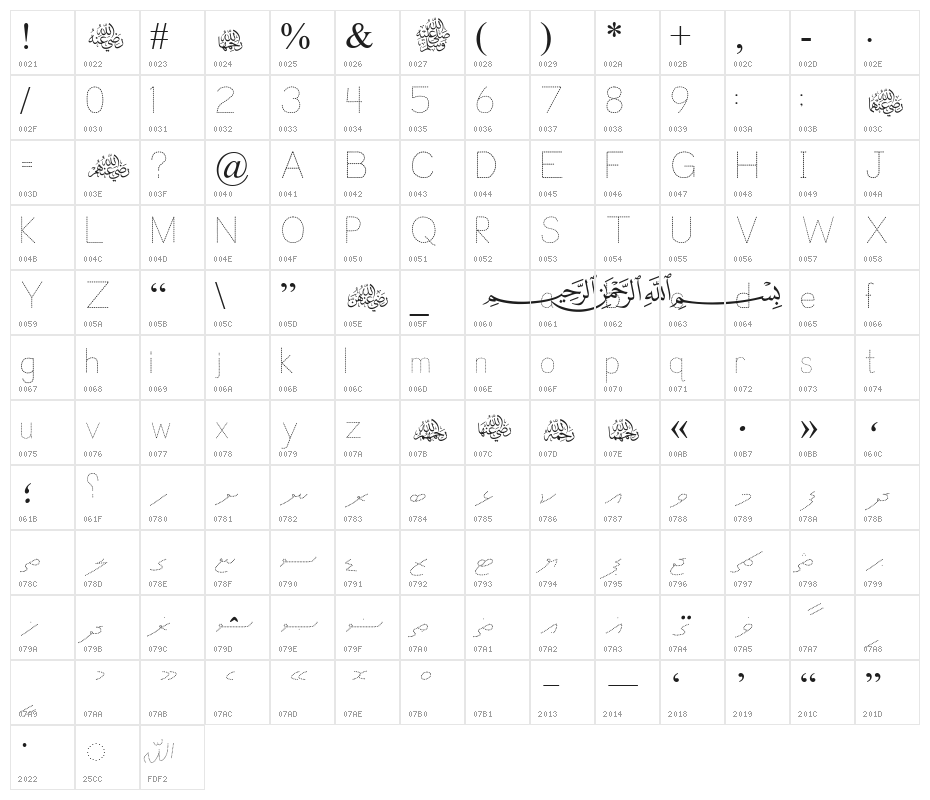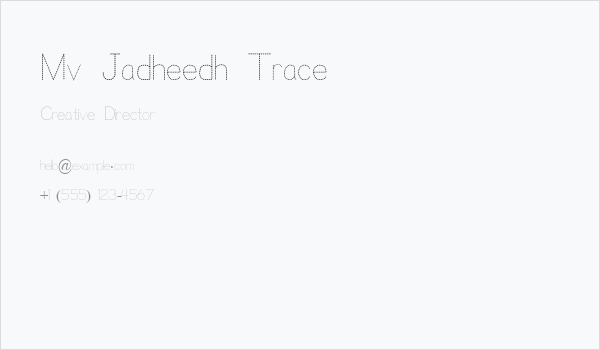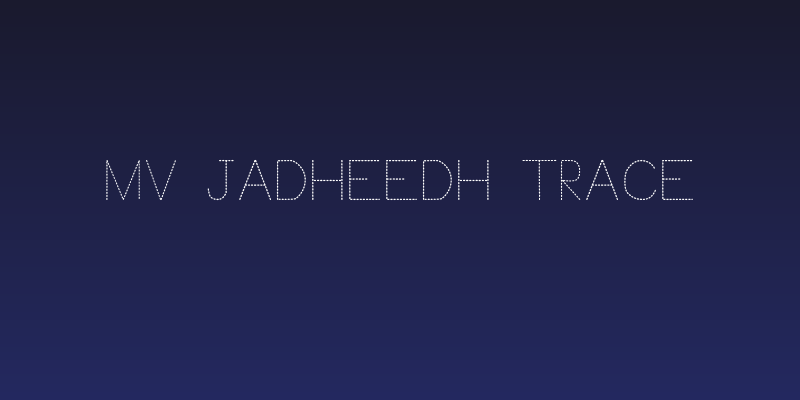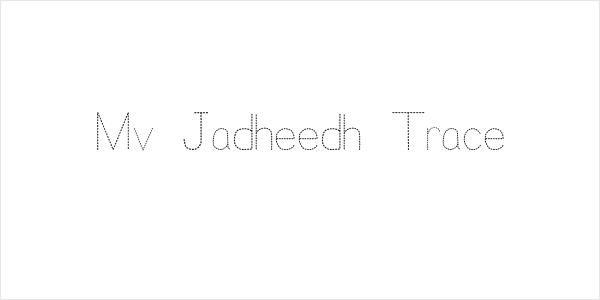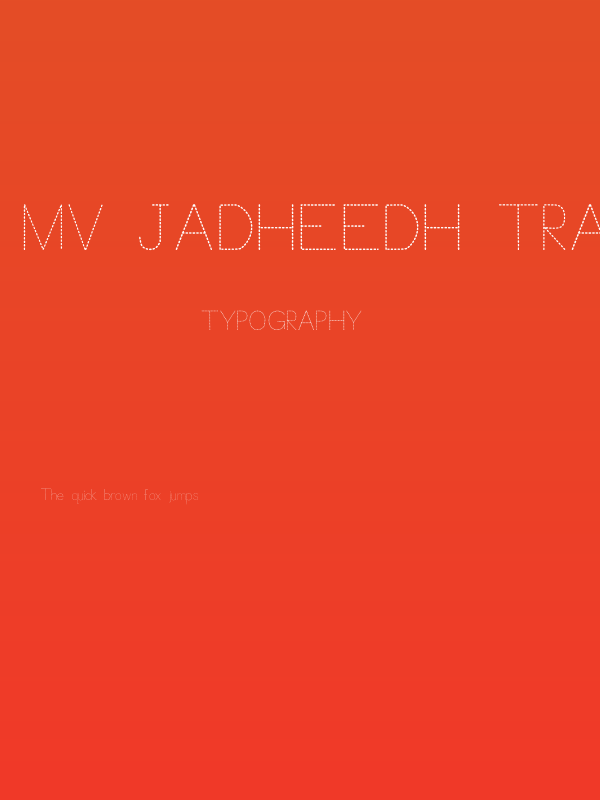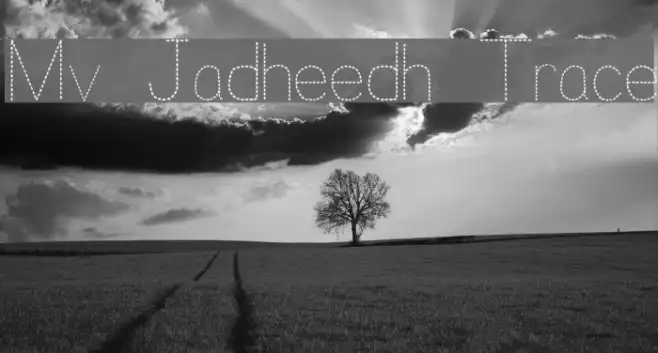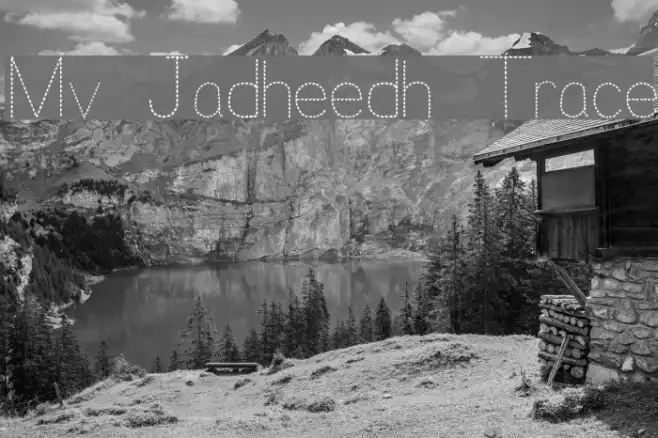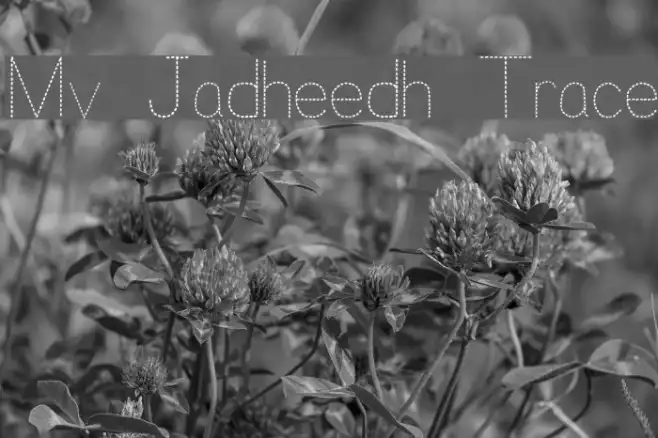
Mv Jadheedh Trace Font
| Style général | Playful |
| Cas d'utilisation | Educational materials, creative design projects |
| Projets proposés | Perfect for educational materials, children's books, playful branding, and creative design projects. |